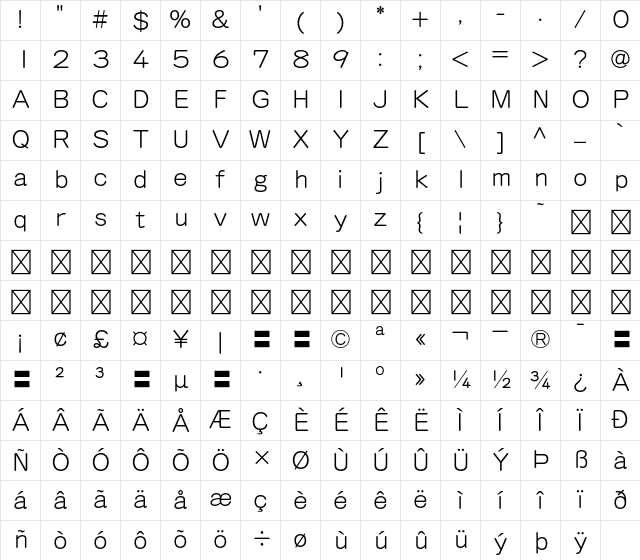
Complete G-OTF KKyoukasho ICA Std R glyph index. Displaying only characters natively supported by G-OTF KKyoukasho ICA Std R font.
G-OTF KKyoukasho ICA Std is a composed and adaptable typeface that performs quietly and consistently across a wide range of design contexts.